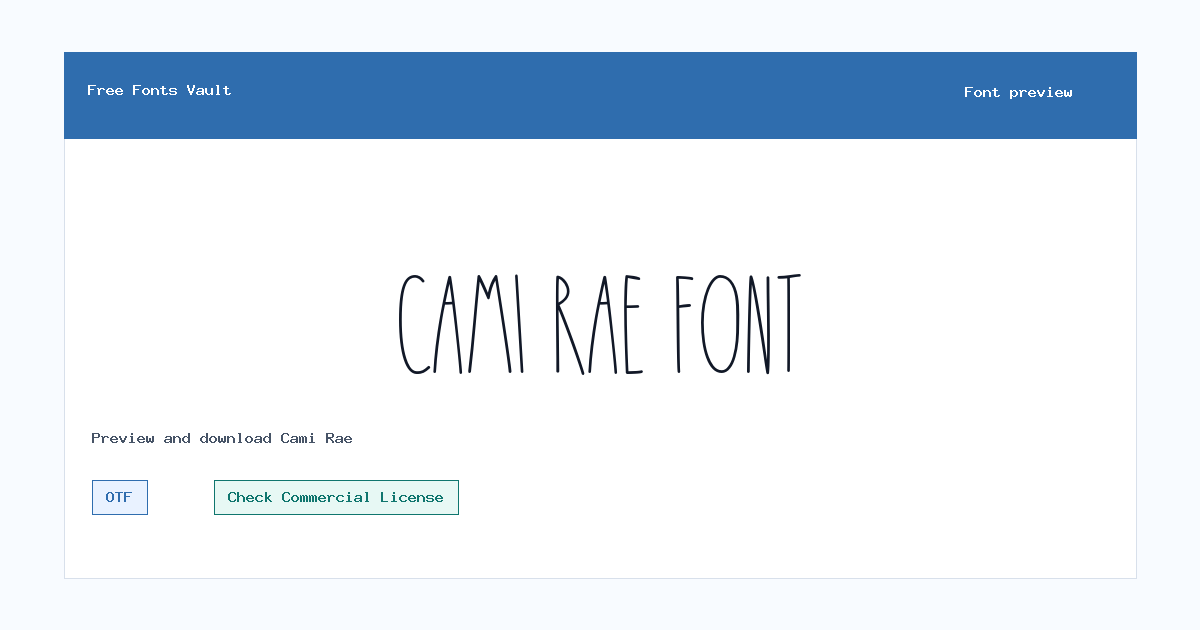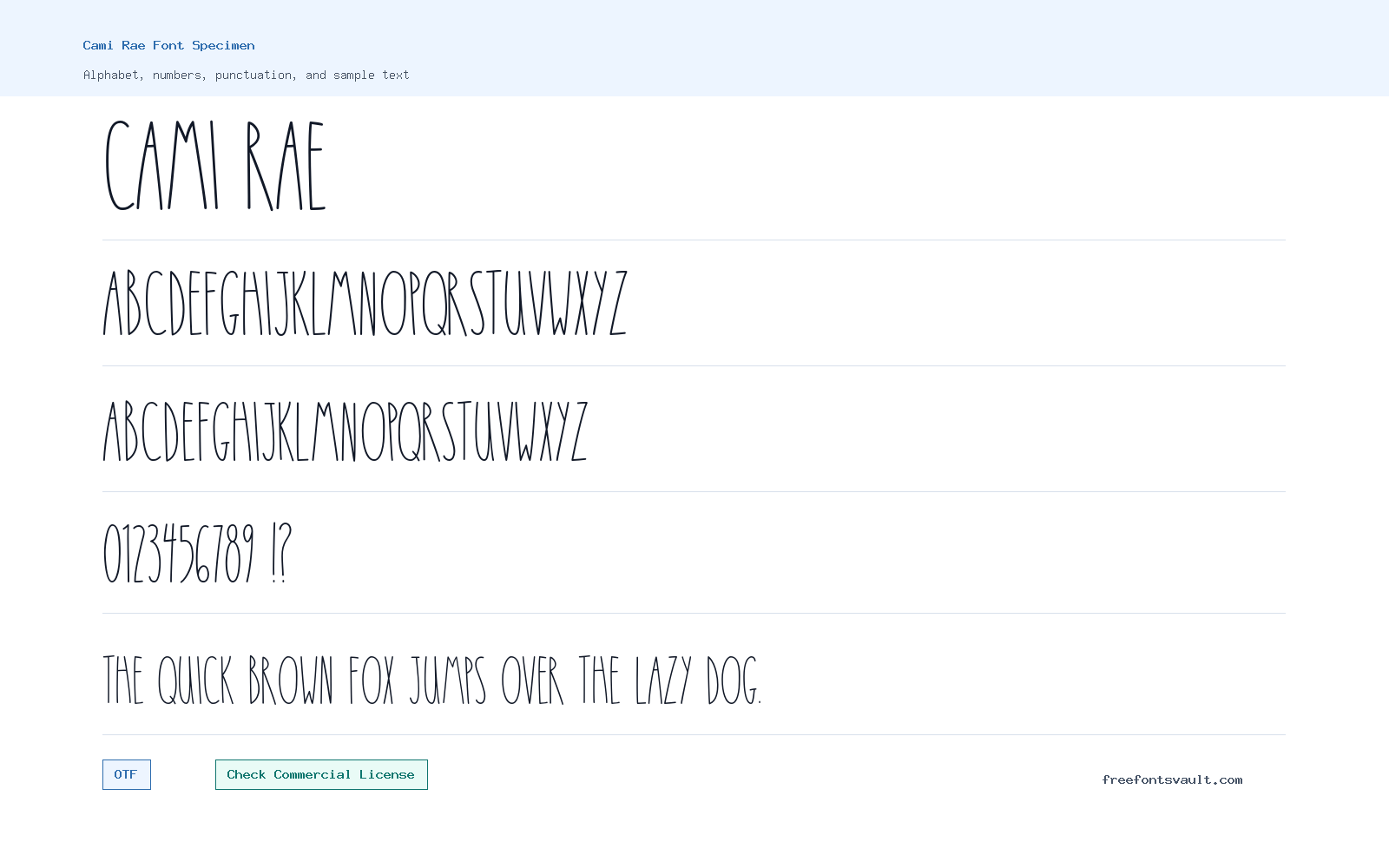
Cami Rae
- Designer Russ McMullin
- Foundry Russ McMullin
Cami Rae is a slim, hand-drawn display font with tall letterforms and a light, casual feel. It works best when you want text to look personal without becoming heavy or overly decorative.
About Cami Rae
Cami Rae uses narrow strokes, uneven handmade shapes, and a mostly upright rhythm. The sample text reads like neat marker or pen lettering, with a friendly look that suits short messages, names, labels, and simple display text. Its thin lines give it an airy style, so it feels better for headings and accents than for dense paragraphs.
- Tall, narrow hand-drawn display lettering suited to short text
- Invitations, name cards, greeting graphics, and personal stationery
- Short quotes, labels, blog graphics, mood boards, and handmade-style headings
Cami Rae is credited to Russ McMullin, with McMullin Creative listed as the designer website.
For the cleanest result, use Cami Rae at display sizes with simple backgrounds. Pair it with a plain sans serif or serif for longer supporting text, and let Cami Rae handle the title, name, or short phrase. Cami Rae is best treated as a display or accent face rather than a long reading font. Use the preview to test casual headings, name treatments, stationery ideas, and short social graphics, then check whether the spacing still feels natural after you change size or color. Since private use is allowed and commercial use requires contact with the designer, keep the license note attached to any draft you send to a client or teammate. If the design uses a long name or quote, break it into shorter lines and compare the result with a neutral supporting face. That keeps the handwritten character visible without making the whole composition difficult to scan.
What style of font is Cami Rae?
It is a thin, narrow, hand-drawn display font with a casual handwritten look.
Is Cami Rae good for body text?
It is better for short display text. For paragraphs or small text, use a more readable companion font.
Who designed Cami Rae?
The font is credited to Russ McMullin.